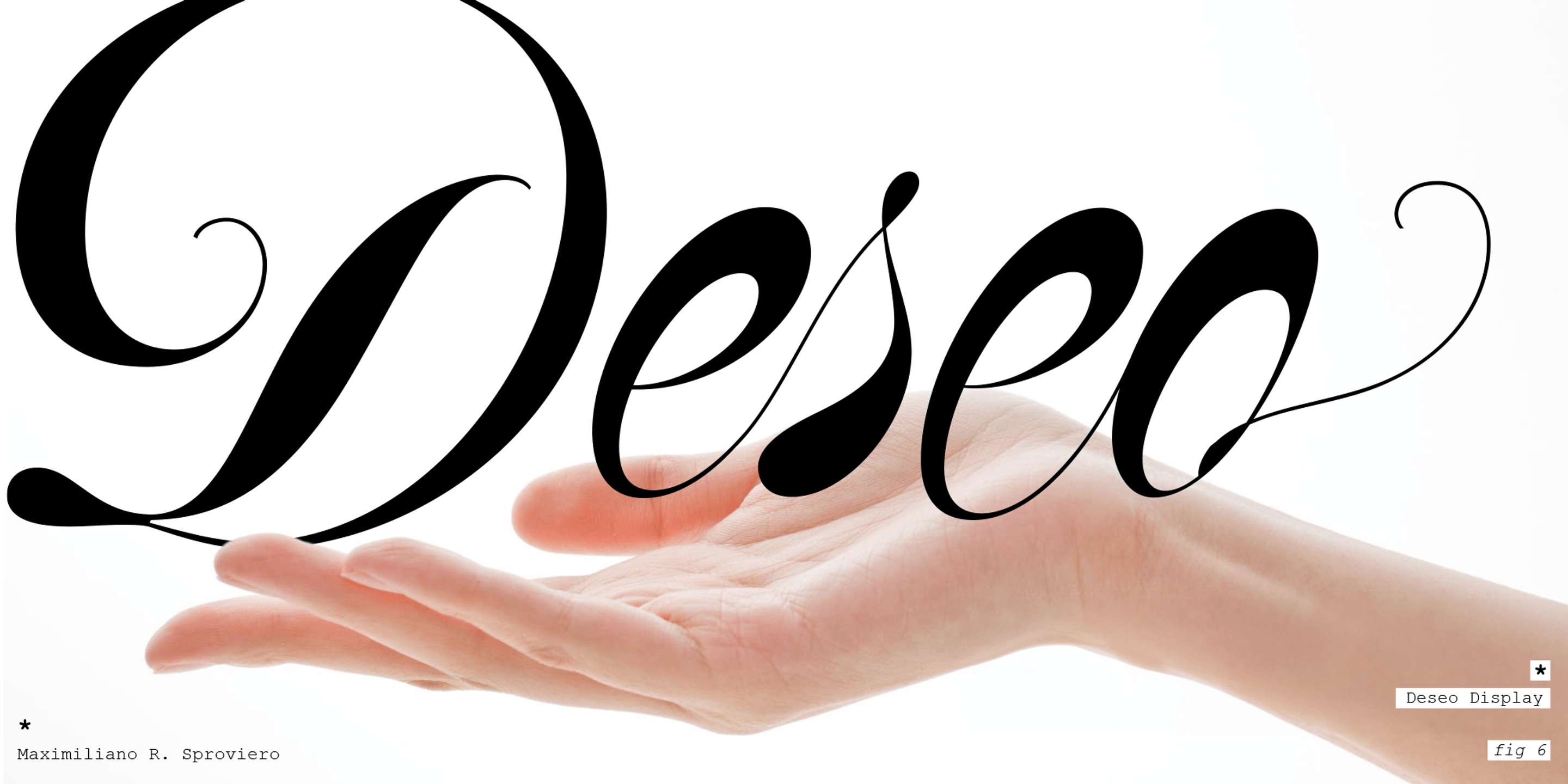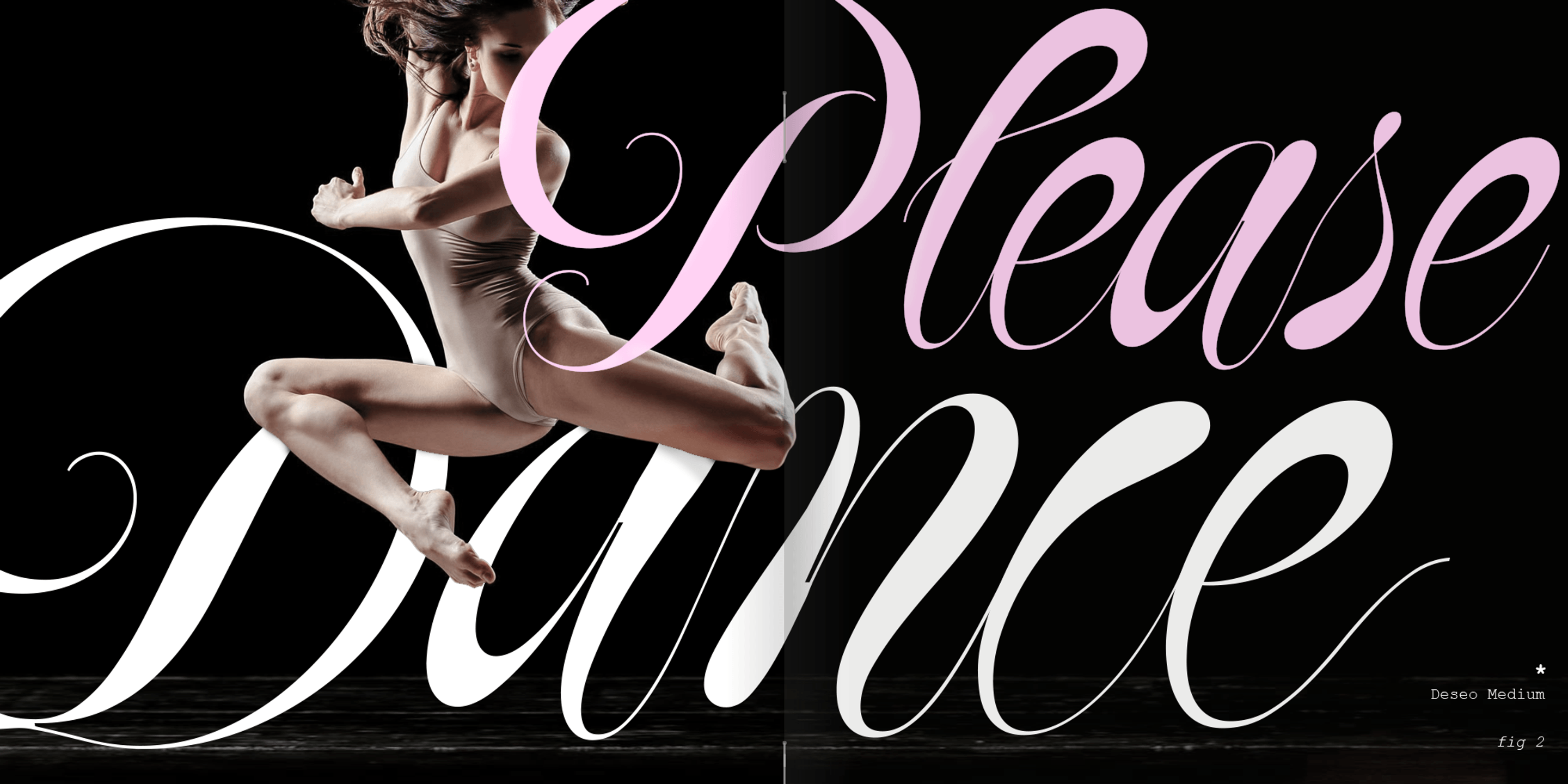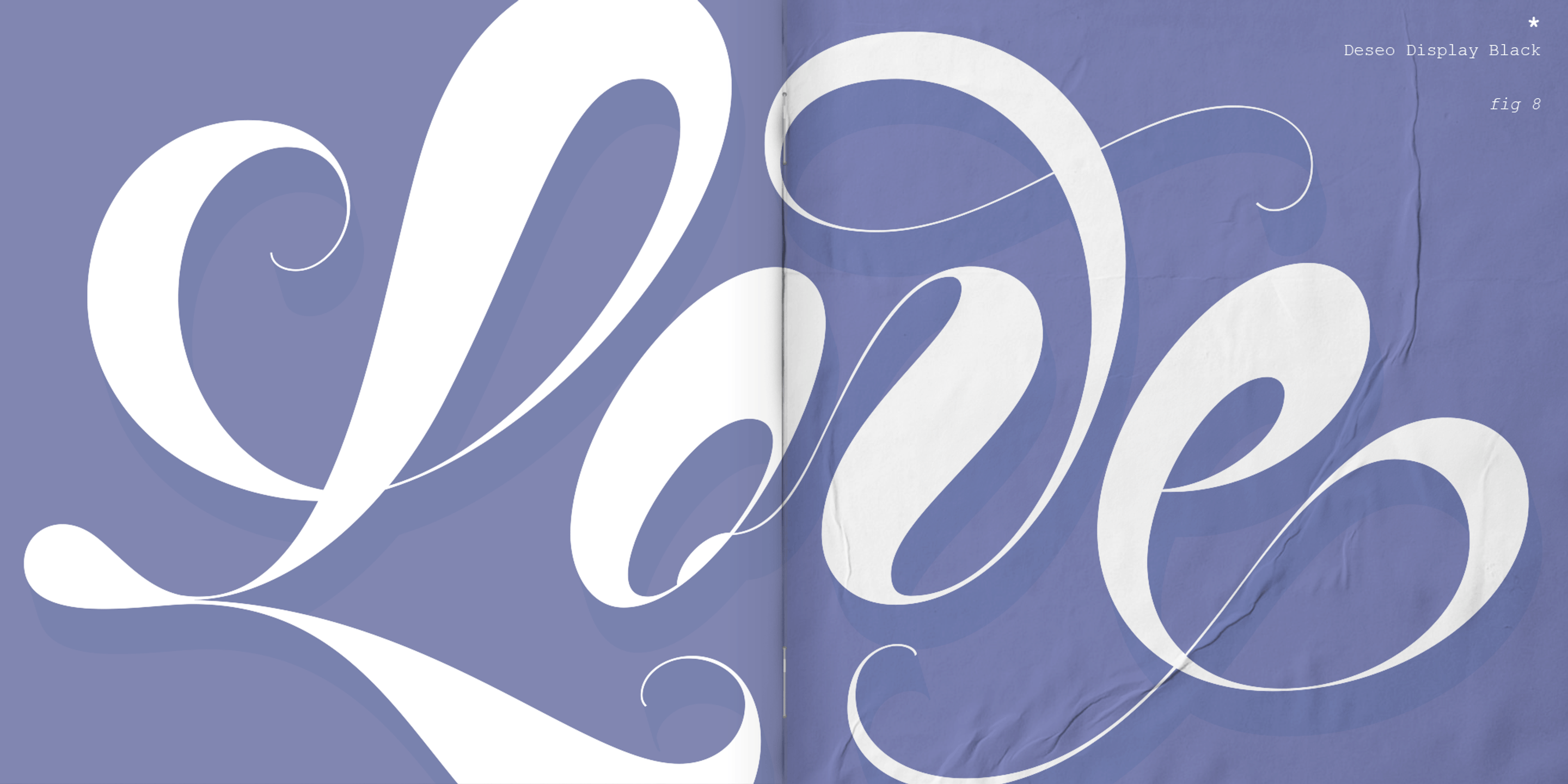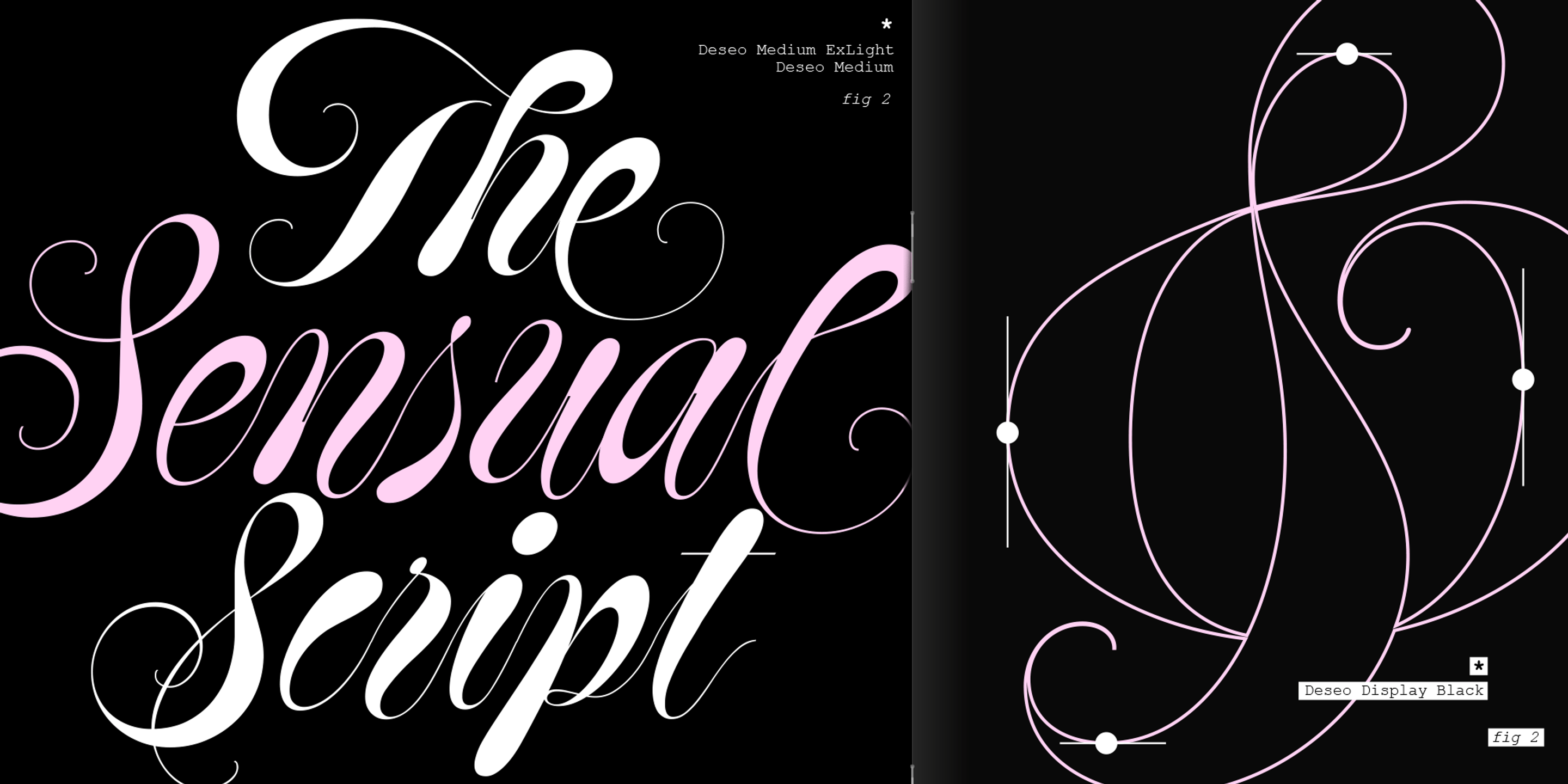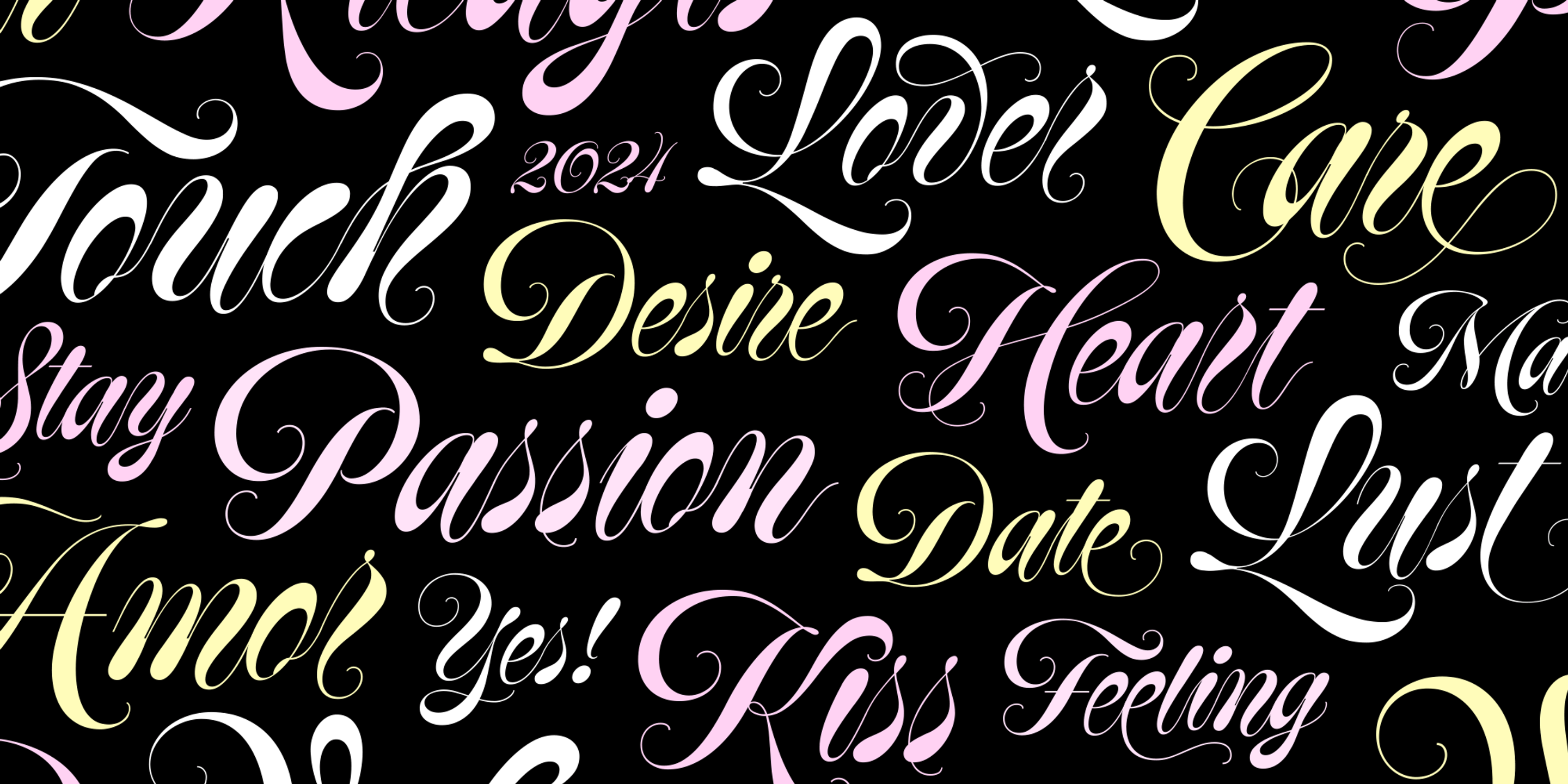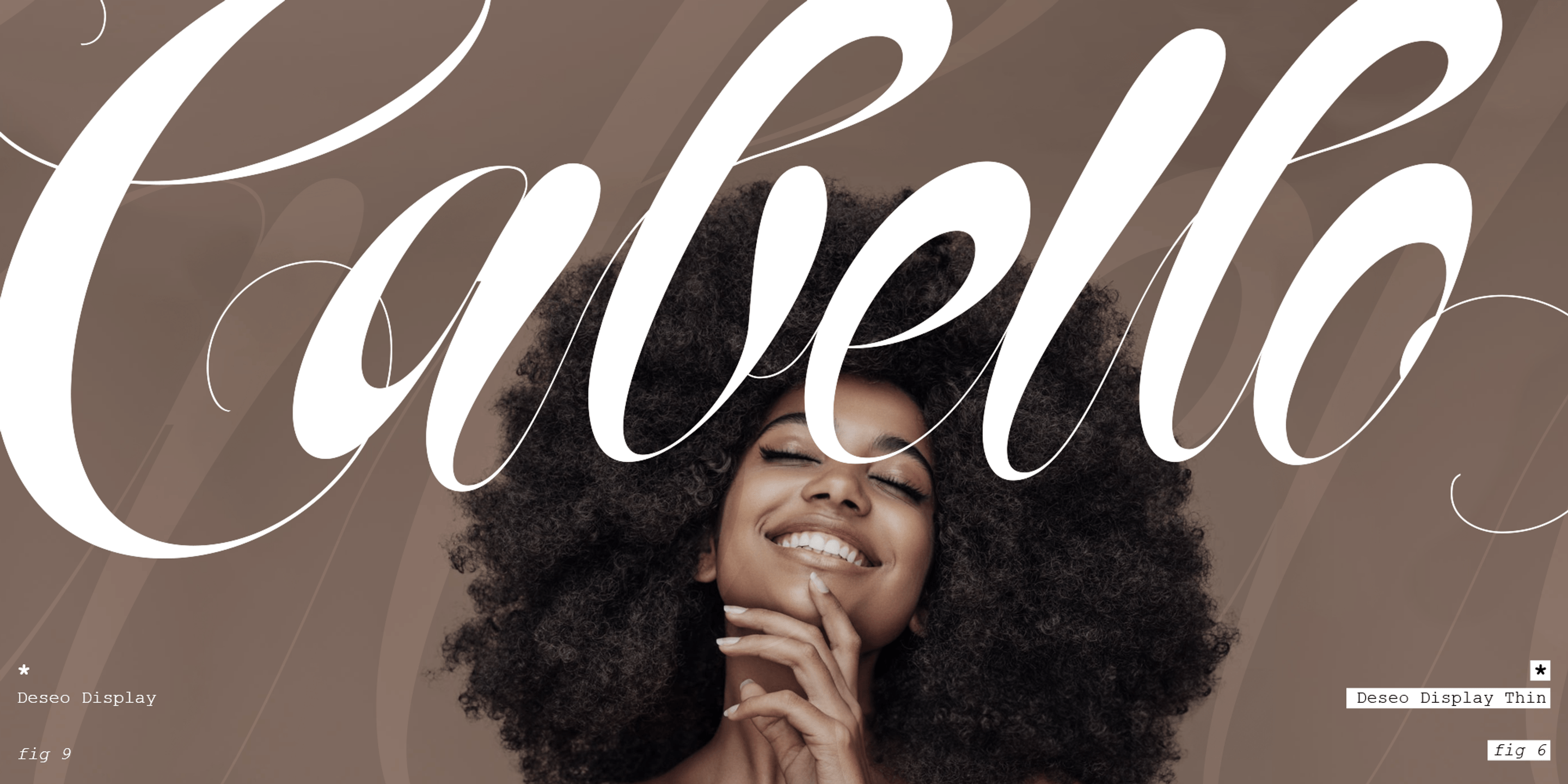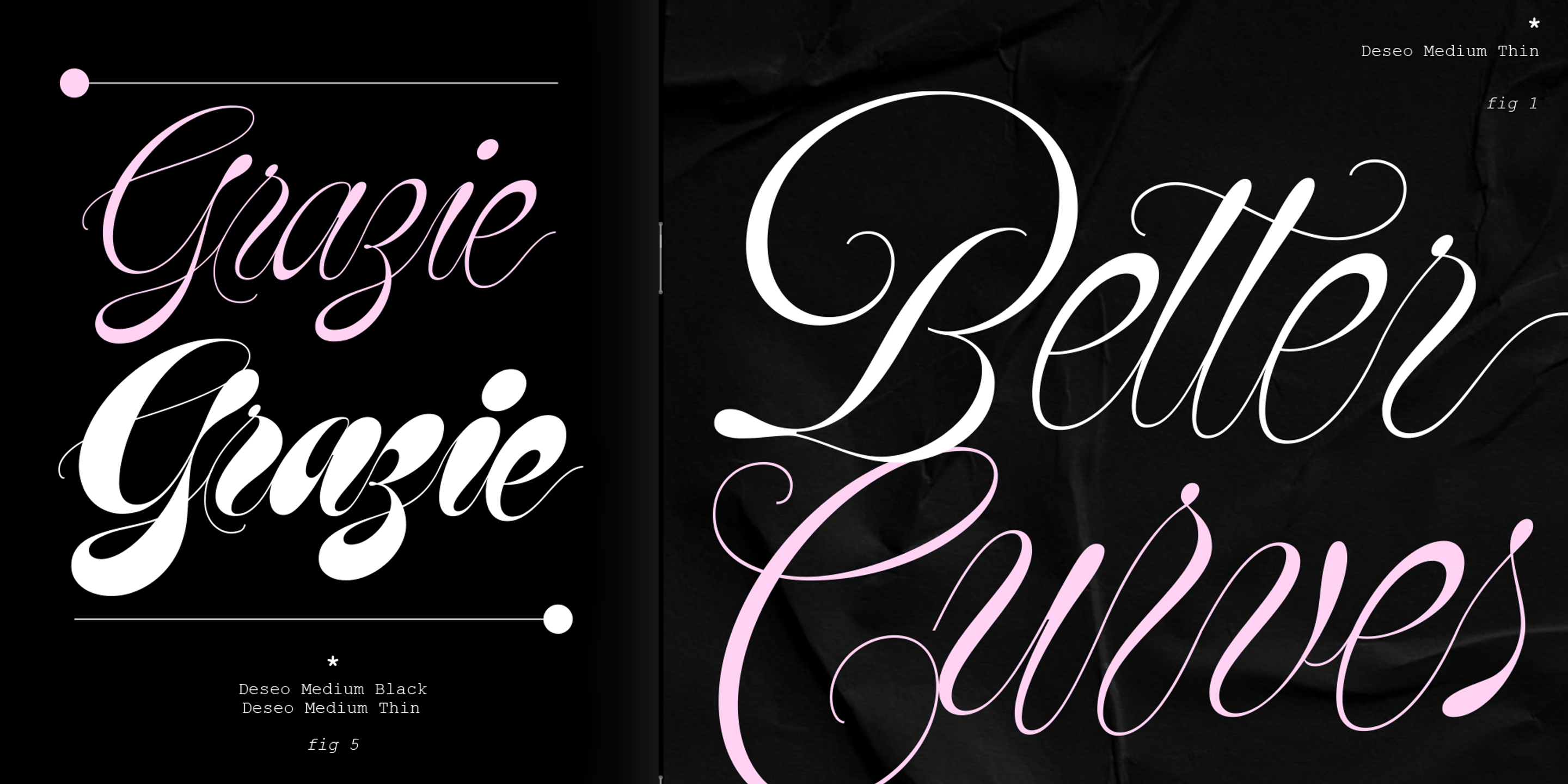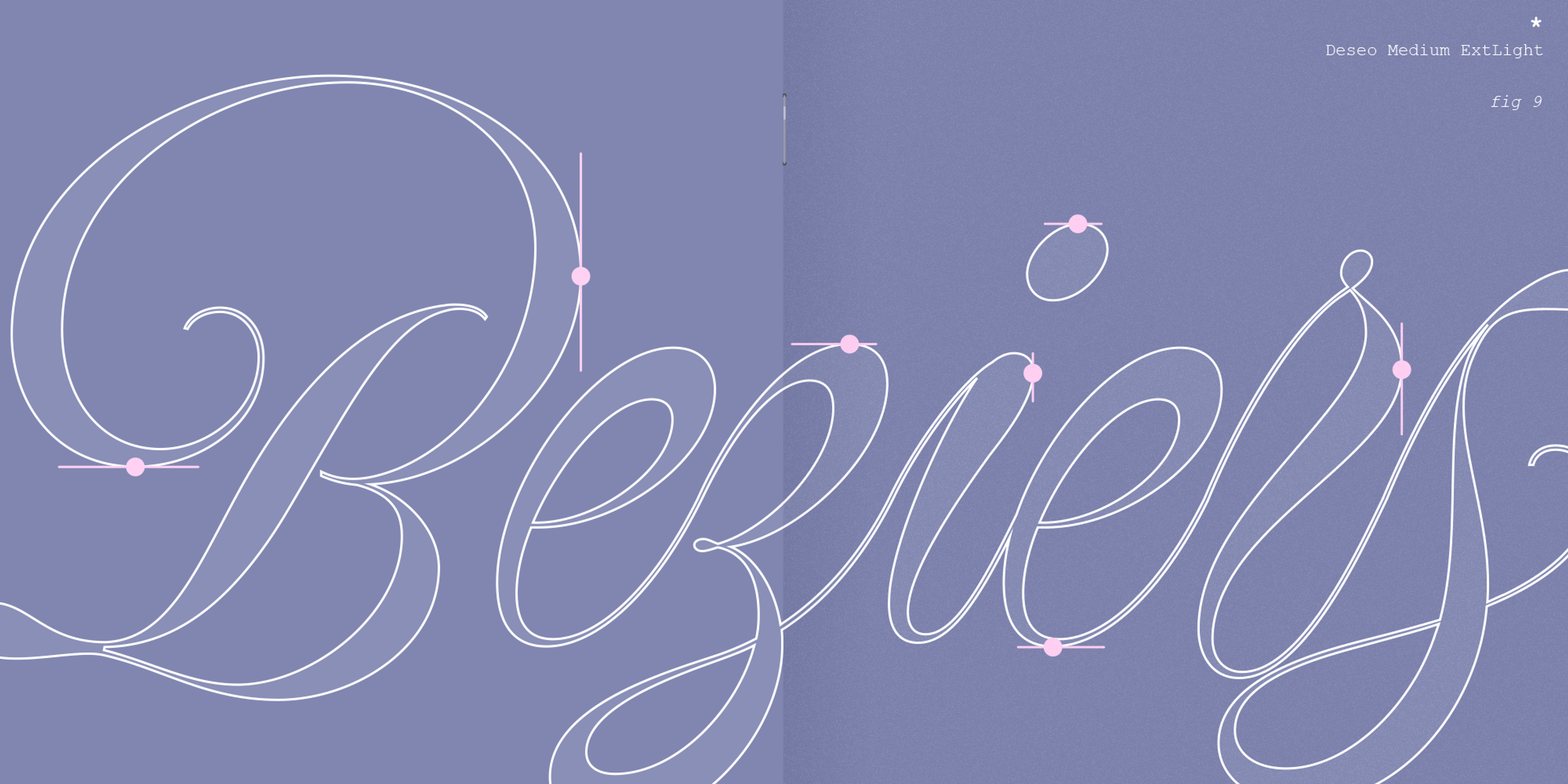
Deseo font by Sproviero Type — the word “Deseo” in a high-contrast connected script with a large swash on the capital D and a long swash extending from the final o, floating above an open hand.
Deseo font by Sproviero Type — a dancer in mid-leap, with the words “Please Dance” in a high-contrast connected script, “Please” in pink and “Dance” in white
Deseo font by Sproviero Type — the word “Love” in an elegant, high-contrast connected script, with a small star icon and the words “Deseo Display Black” and “fig 8” in the top right corner
Deseo font by Sproviero Type — the words “The Sensual Script” in a high-contrast connected script, with “The” and “Script” in white and “Sensual” in pink, alongside a pink outline diagram of a capital D with control points
Deseo font by Sproviero Type — a pattern of connected script words in white, pink, and yellow, including “Touch,” “Lover,” “Care,” “Desire,” “Heart,” “Passion,” “Amor,” “Yes!,” “Kiss,” and “Feeling”
Deseo font by Sproviero Type — the word “Cabello” in a large, flowing, high-contrast italic script, overlaid on a smiling woman with curly hair
Deseo font by Sproviero Type — the word “Grazie” in a light pink connected script and again below it in a heavier white connected script, and on the right the words “Better Curves” in white and pink connected script with flourishes.
Deseo font by Sproviero Type — the word “Béziers” in a white outline script, with pink control points and lines indicating the Bézier curves, and the words “Deseo Medium ExtLight” and “fig 9” in the upper right
Deseo Variable
Ligatures
Discretionary Ligatures
Ornaments
Stylistic Alternates
Swashes
Stylistic Set 1
Stylistic Set 2
Stylistic Set 3
Stylistic Set 4
Stylistic Set 5
Stylistic Set 6
Stylistic Set 7
Stylistic Set 8
Stylistic Set 9
Stylistic Set 10
Stylistic Set 11
Stylistic Set 12
Stylistic Set 13
Stylistic Set 14
Stylistic Set 15
Stylistic Set 16
Stylistic Set 17
Stylistic Set 18
Stylistic Set 19
Stylistic Set 20
Titling
Initial Forms
Final Forms